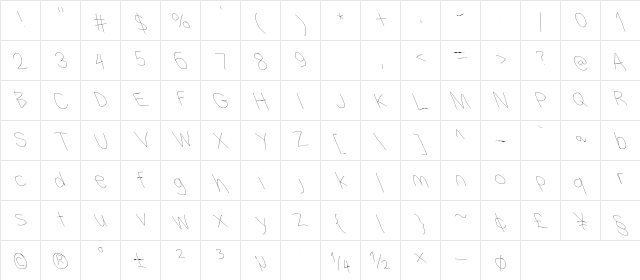
Filament Serie Three
Design Context for Filament Serie Typeface
Filament Serie is a composed and adaptable typeface that performs quietly and consistently across a wide range of design contexts.